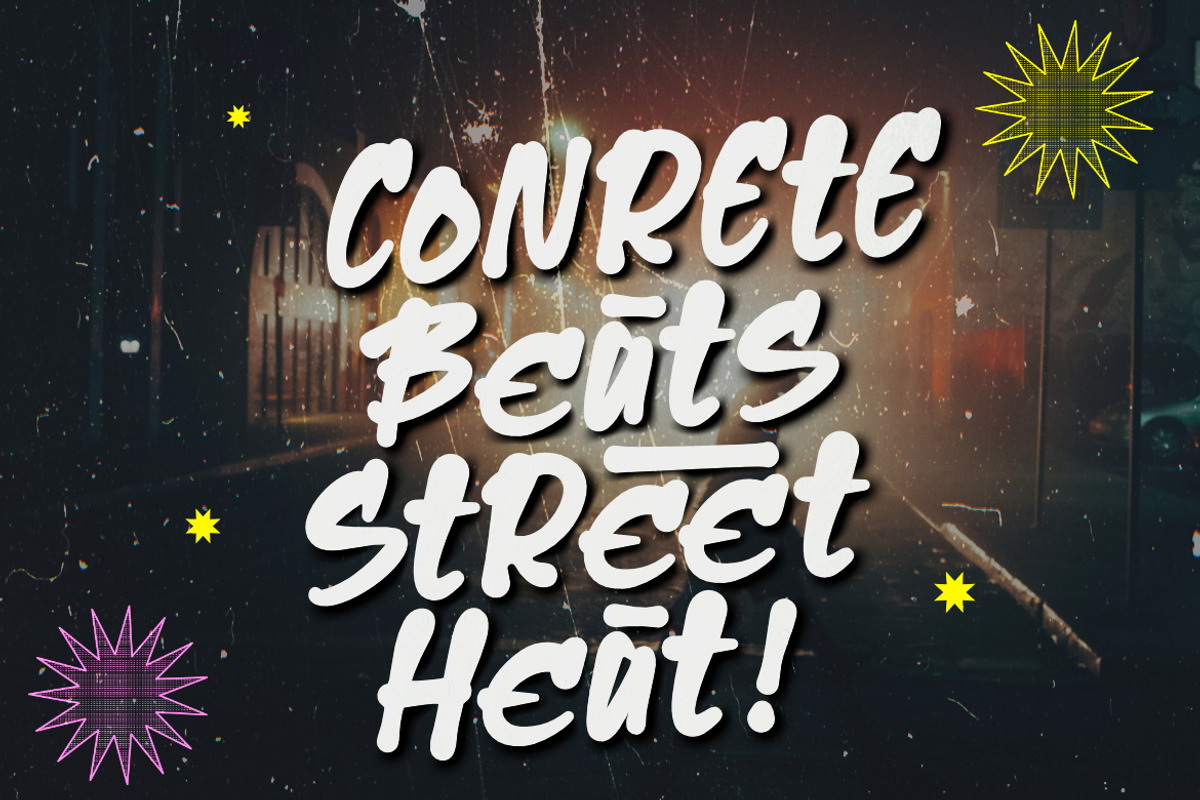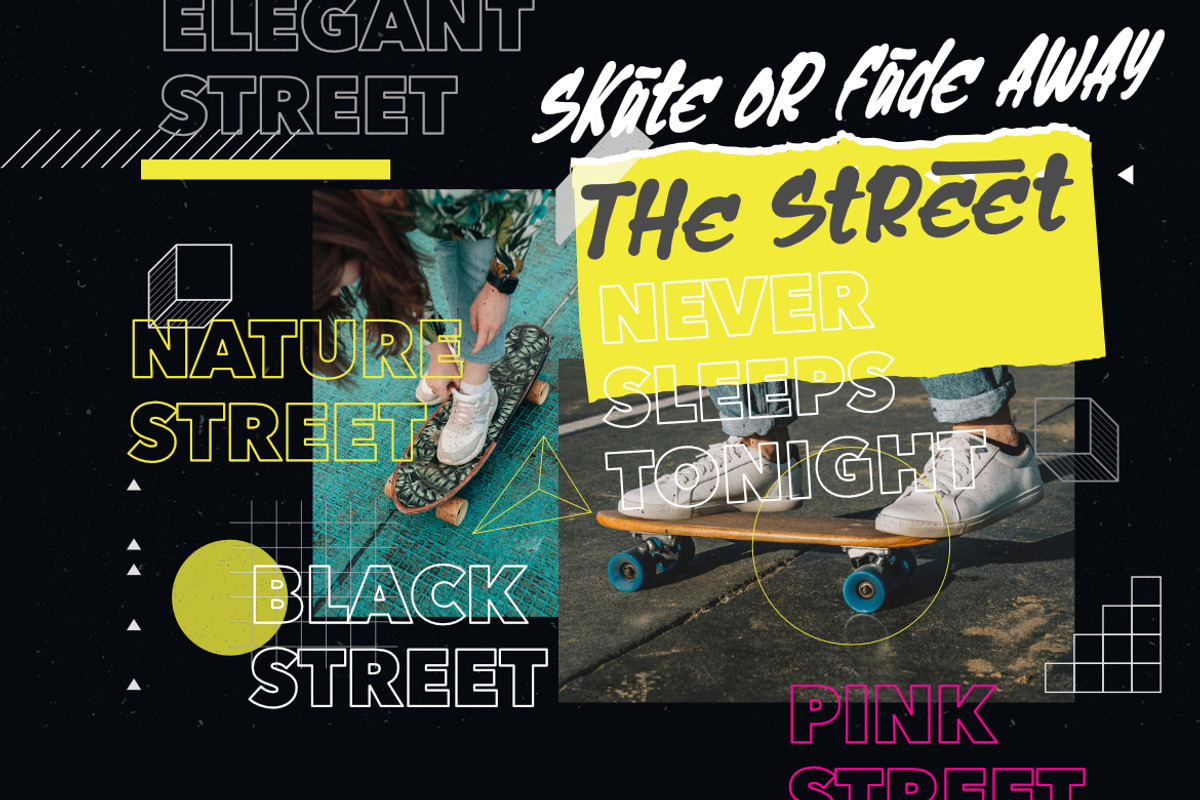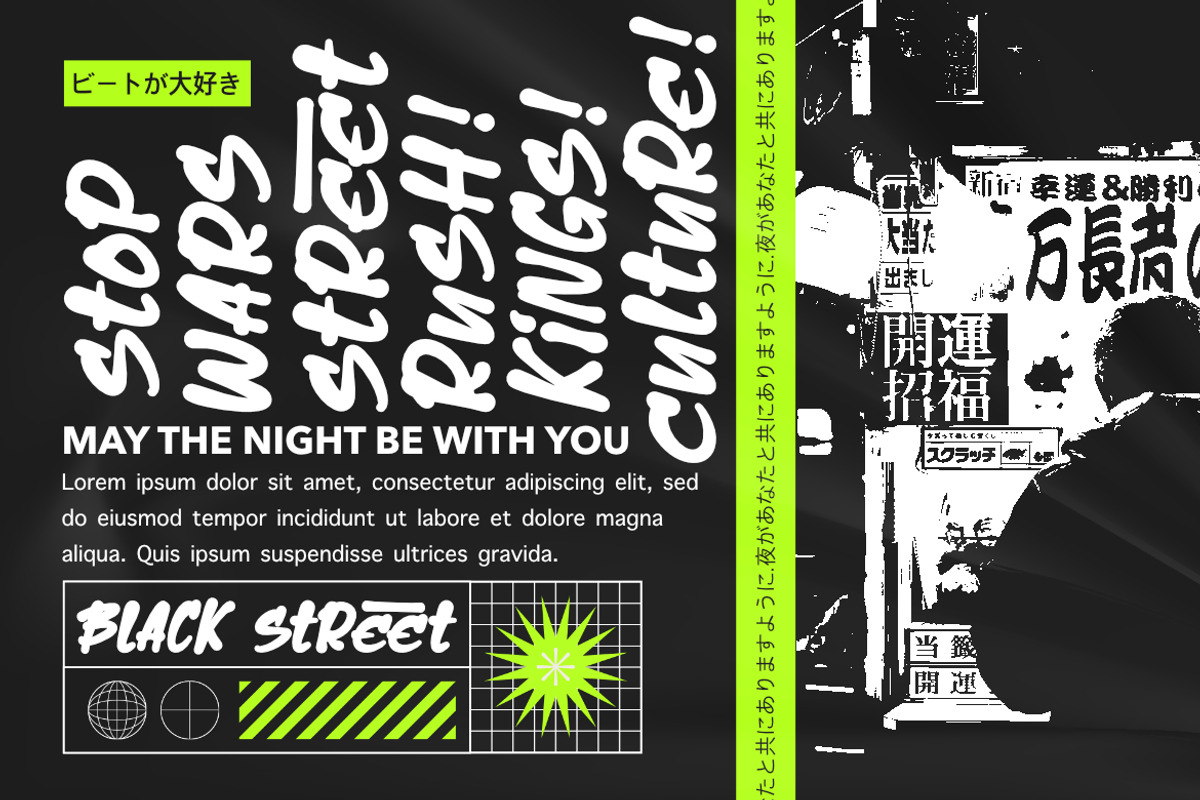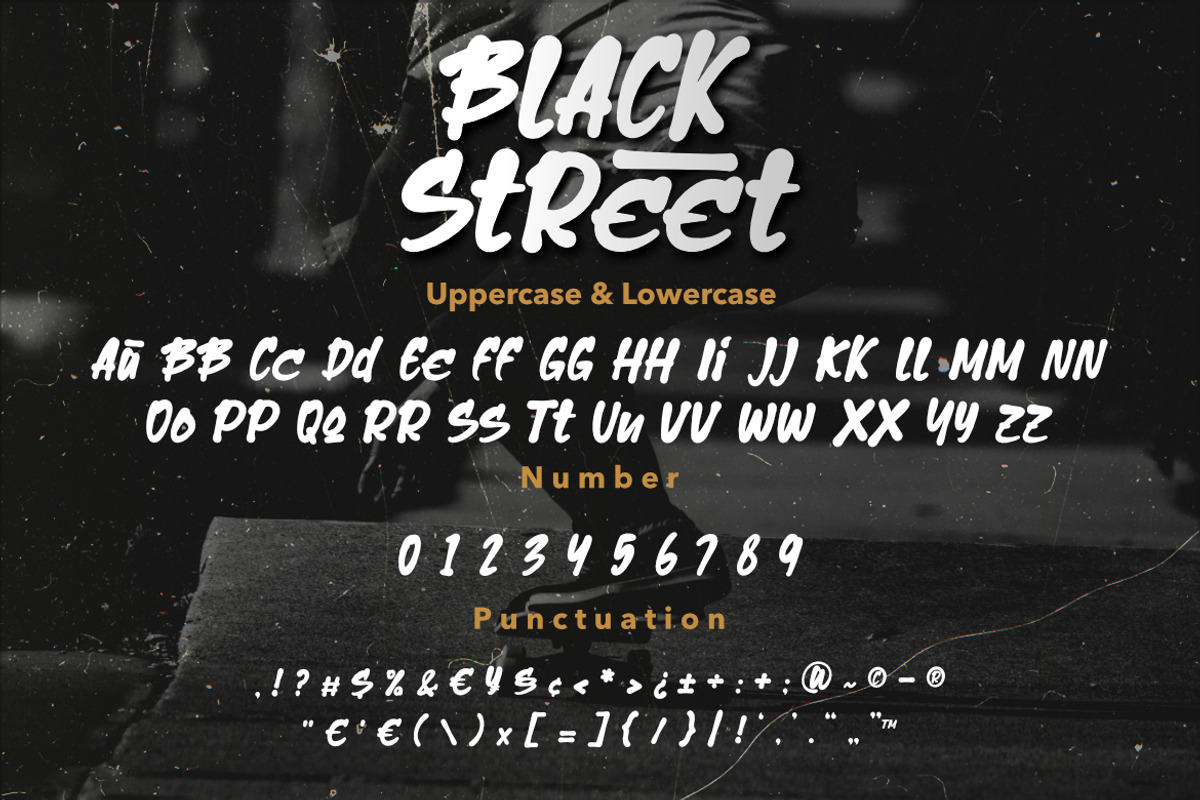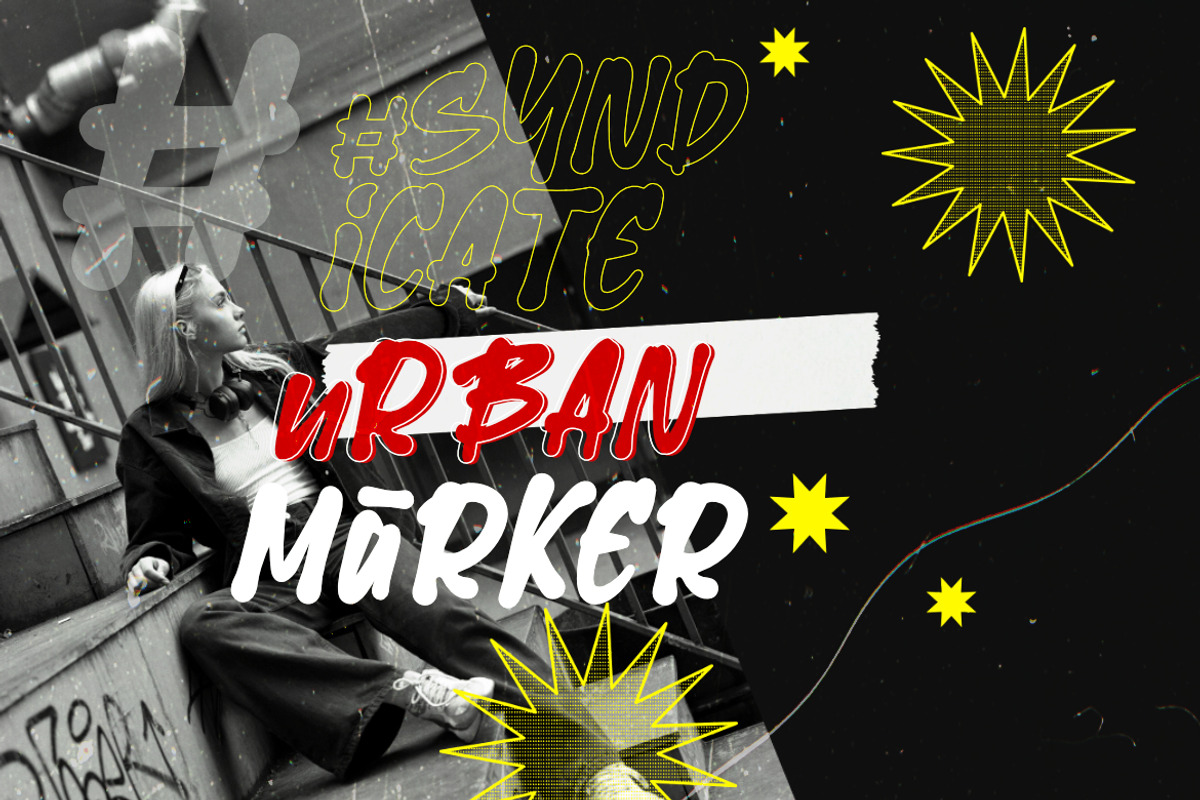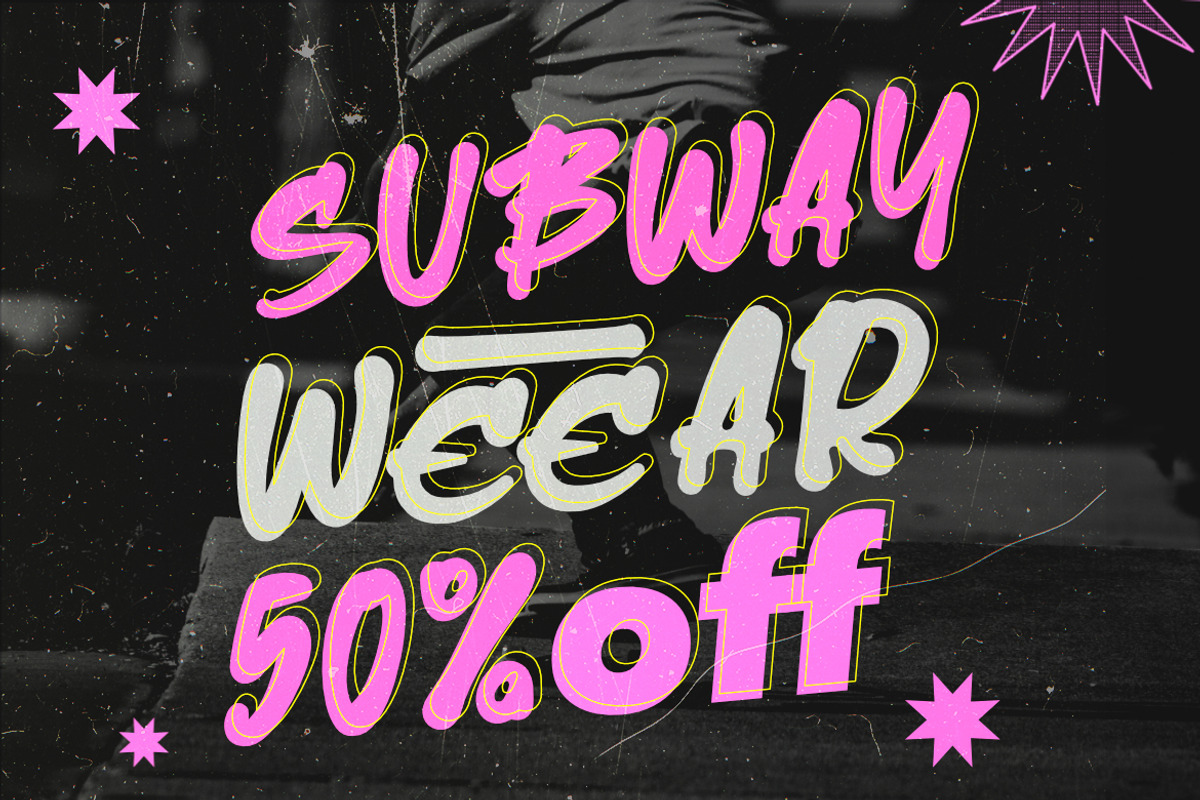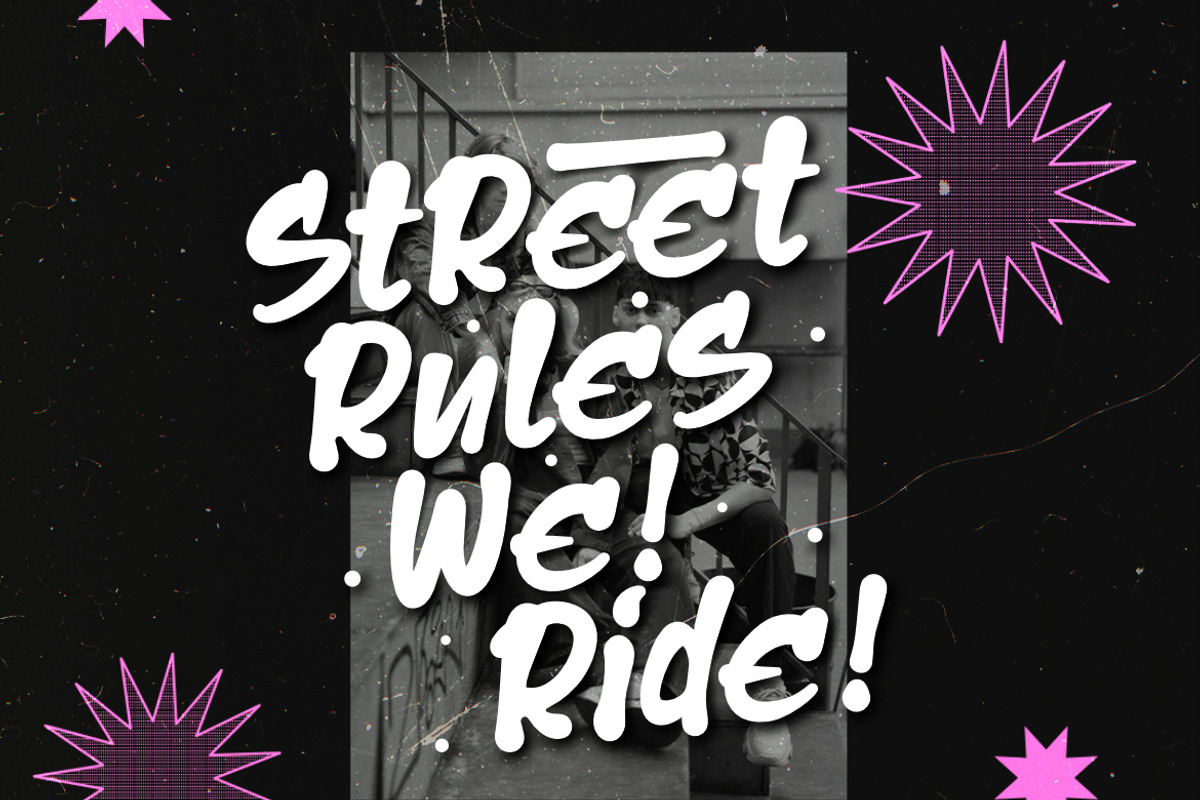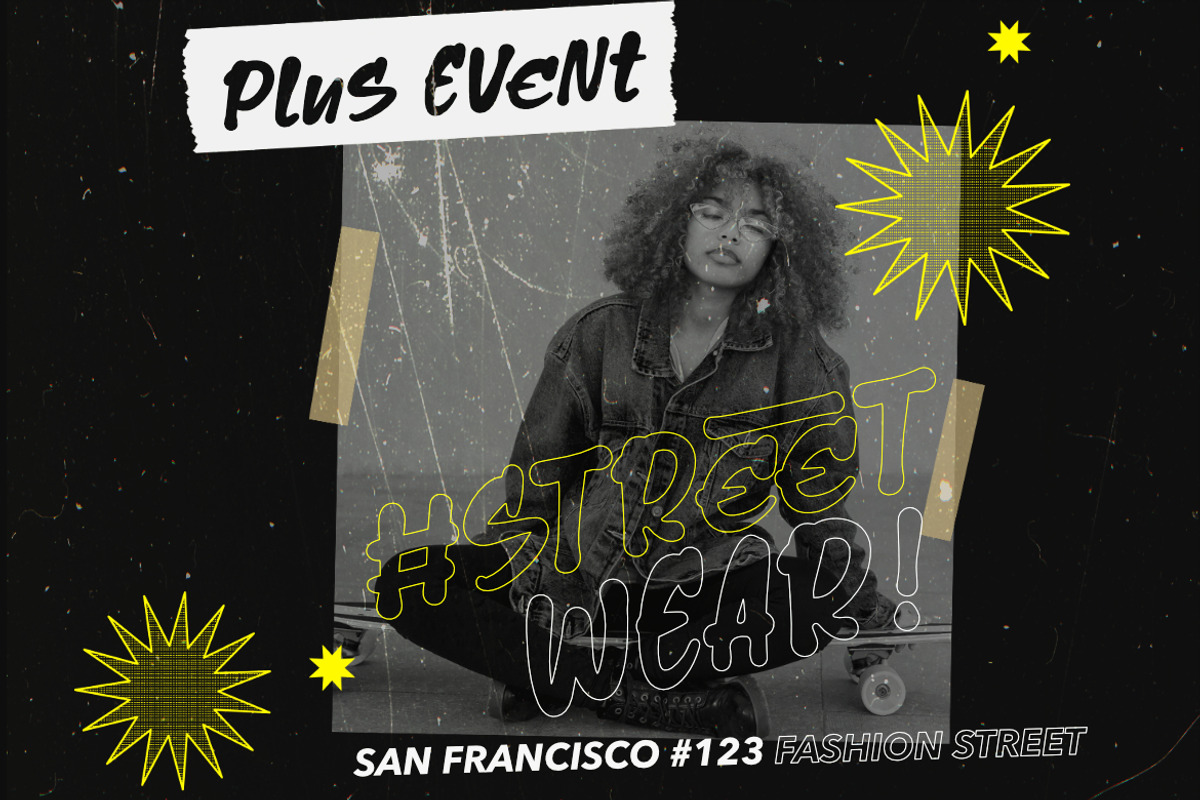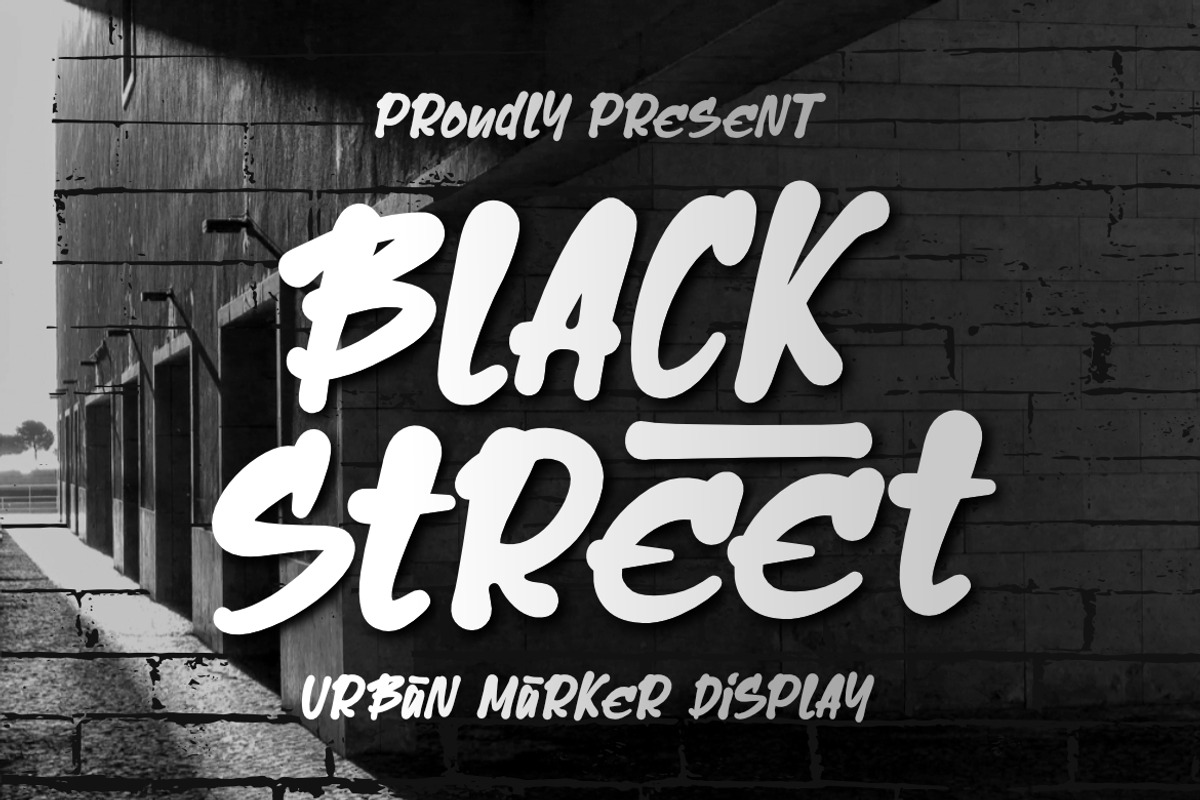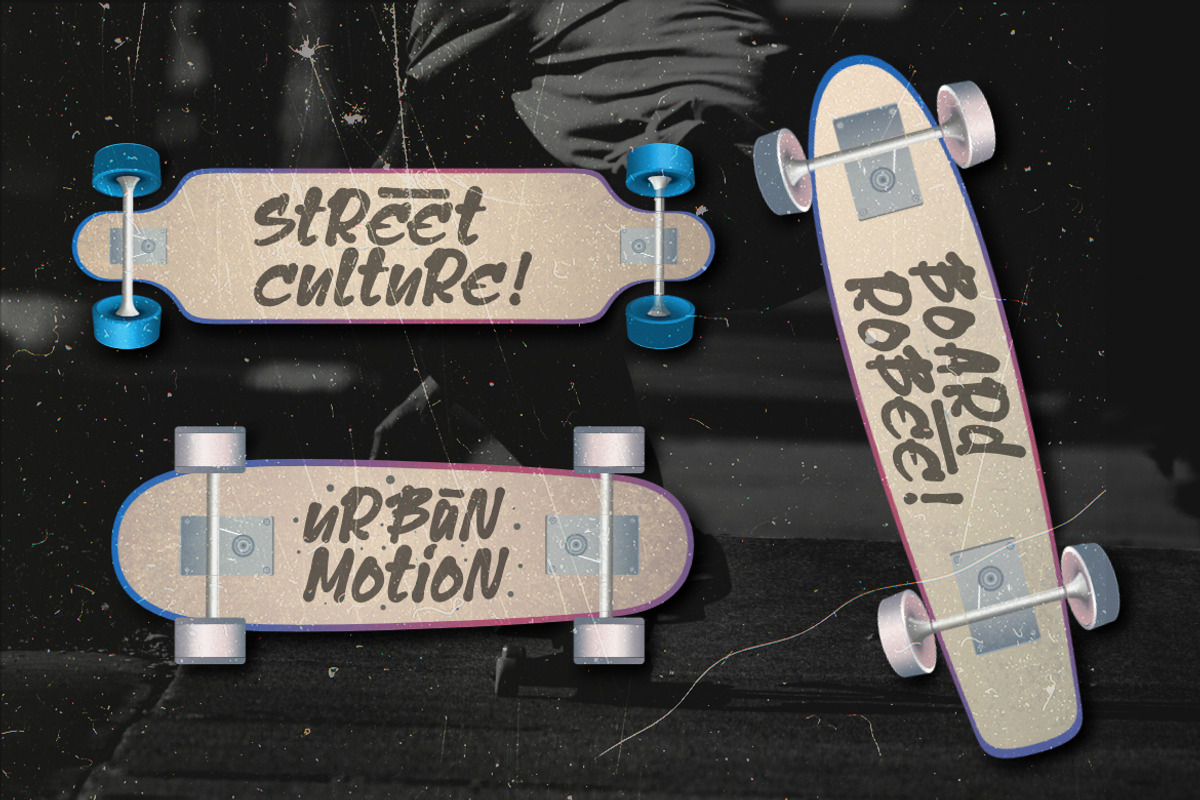
Black Street - Urban Marker Font
Black Street Urban Marker Font
Black Street Urban Marker Font captures the raw, expressive energy of street culture and graffiti art. Designed with bold strokes, rough edges, and authentic marker textures, this typeface channels the true essence of urban rebellion and freestyle creativity.
Every letter carries the rhythm of the city — spontaneous, loud, and full of motion. Perfect for branding, music covers, skate graphics, and posters that demand attention and attitude. Black Street stands out with its hand-drawn imperfection, making each word feel alive and real.
This font embodies the fearless voice of the streets — rugged yet stylish, raw yet intentional. Whether you’re designing for merchandise, murals, or digital media, Black Street gives your work a punch of authenticity and underground spirit.
Suitable For :
- Fashion & Urban Branding
- Skateboard & Graffiti Designs
- Music & Hip-Hop Covers
- Posters & Merchandise
- Youth Culture & Lifestyle Projects
With Black Street Urban Marker Font, your designs will pulse with street energy — bold, untamed, and unapologetically real.